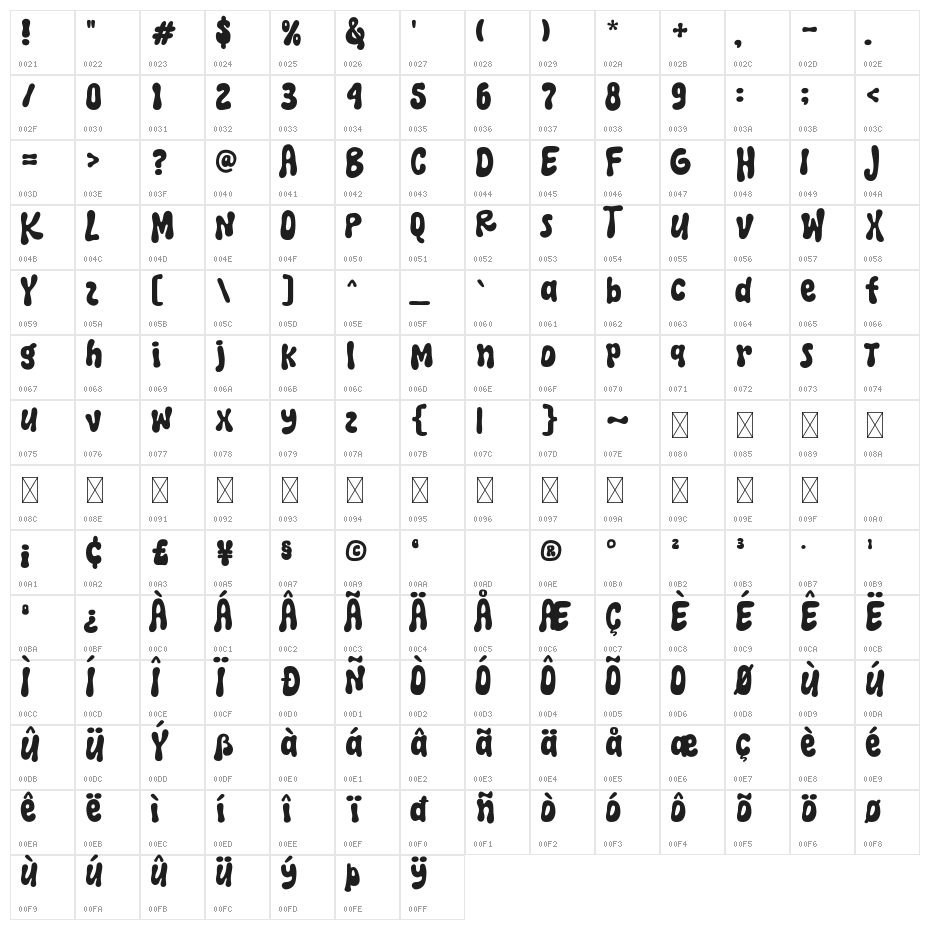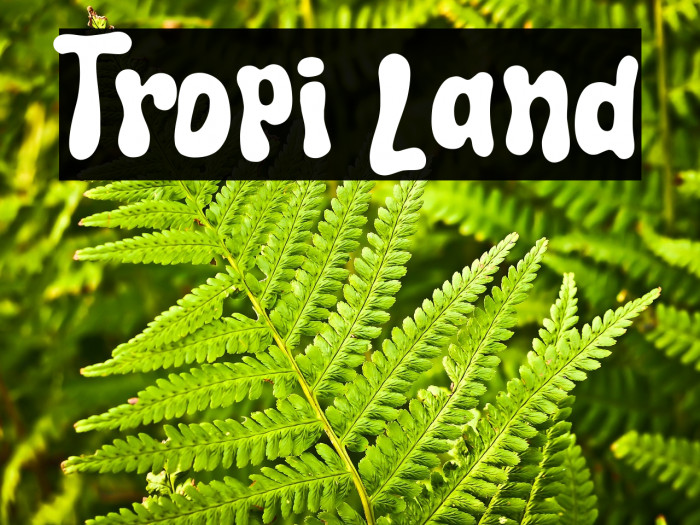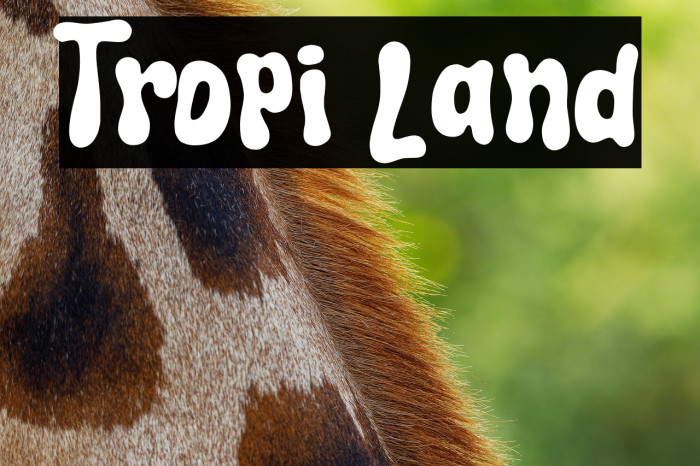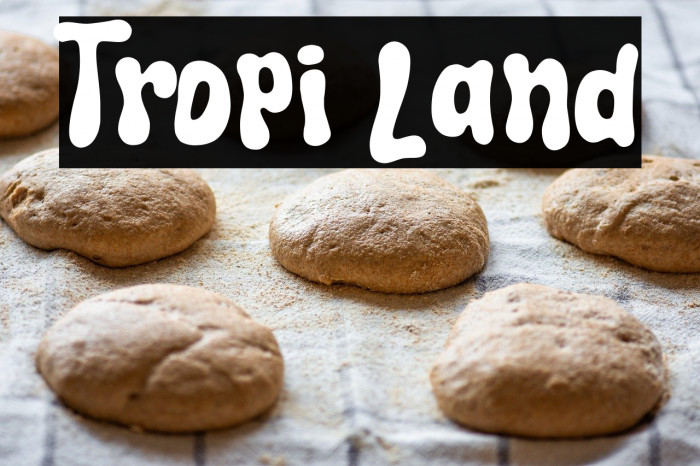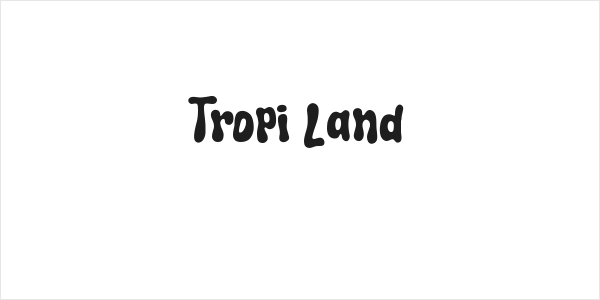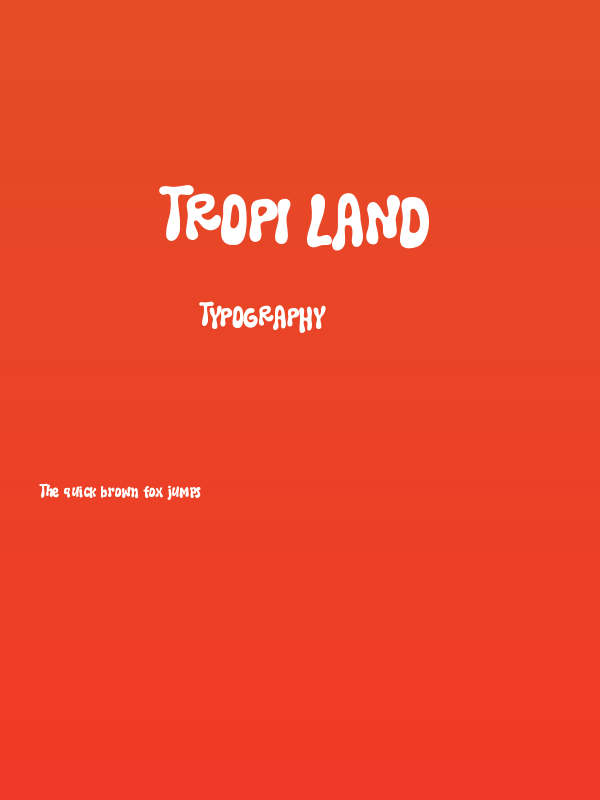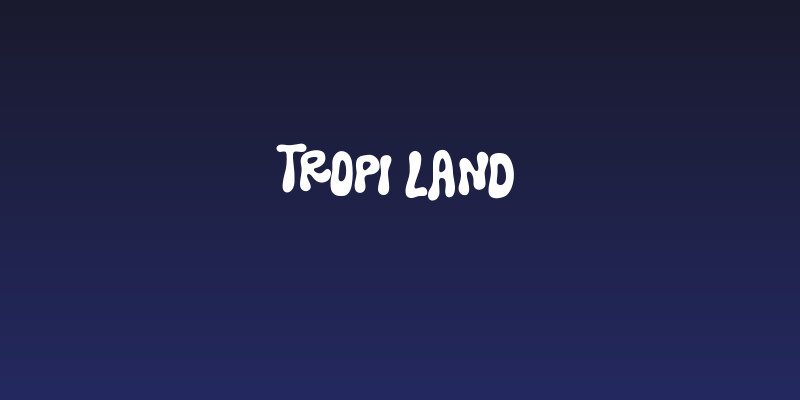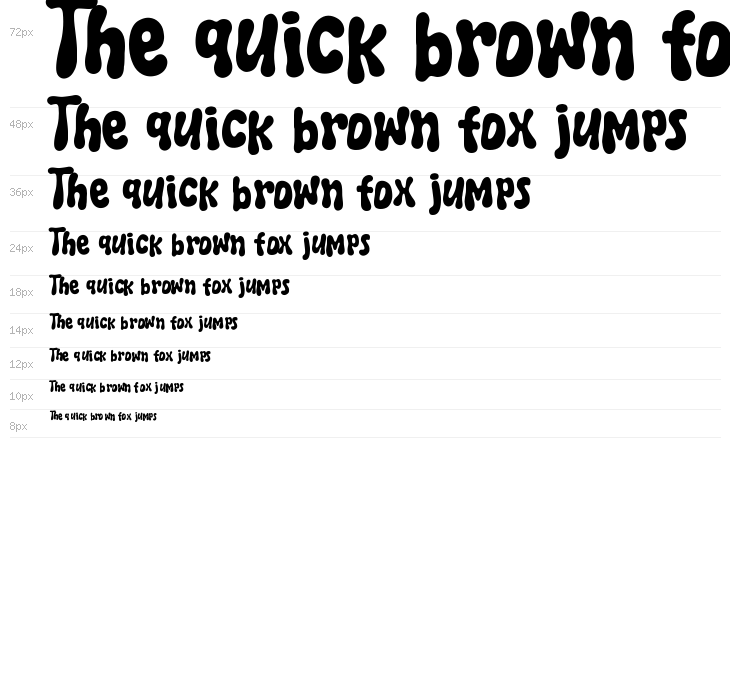
Tropi Land Font
Tropi Land Description
This playful and bold font features a unique, wavy design that gives it a lively and energetic feel. The characters are rounded and have a fluid, organic shape, reminiscent of hand-drawn lettering. The font's thick strokes and irregular forms create a sense of movement and fun, making it ideal for projects that require a whimsical or casual touch. Its distinctive style stands out, making it suitable for eye-catching headlines or creative branding. The font includes a full set of uppercase and lowercase letters, numbers, and a variety of special characters, ensuring versatility in design applications.